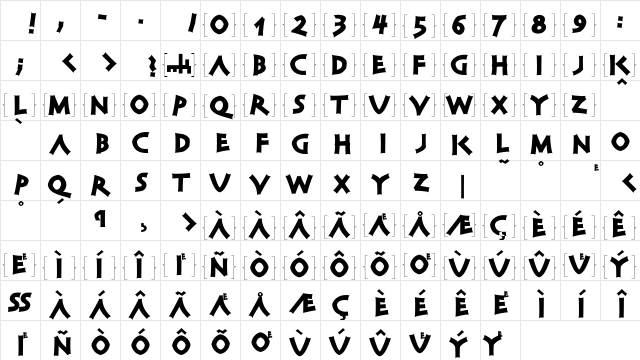
AIClassiCapsF Regular
Design Context for AIClassiCapsF Typeface
AIClassiCapsF has the warm character of retro typography — evoking diners, record sleeves, and the golden age of print advertising.
Font Pairing: Combine AIClassiCapsF with a simple slab or neutral sans — period-accurate companions reinforce the vintage feel without competing for attention.
Pro Tip: Lean into AIClassiCapsF's period character by pairing it with aged paper textures, muted colour palettes, and vintage illustration styles.